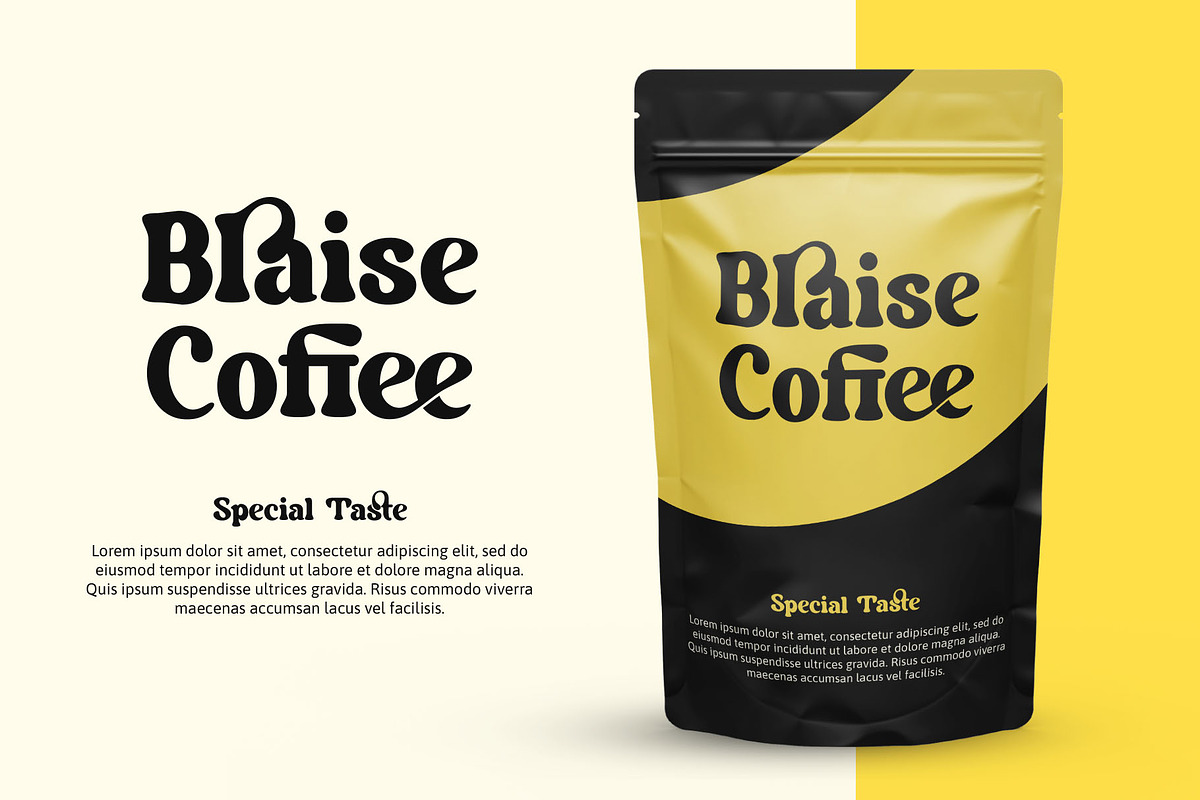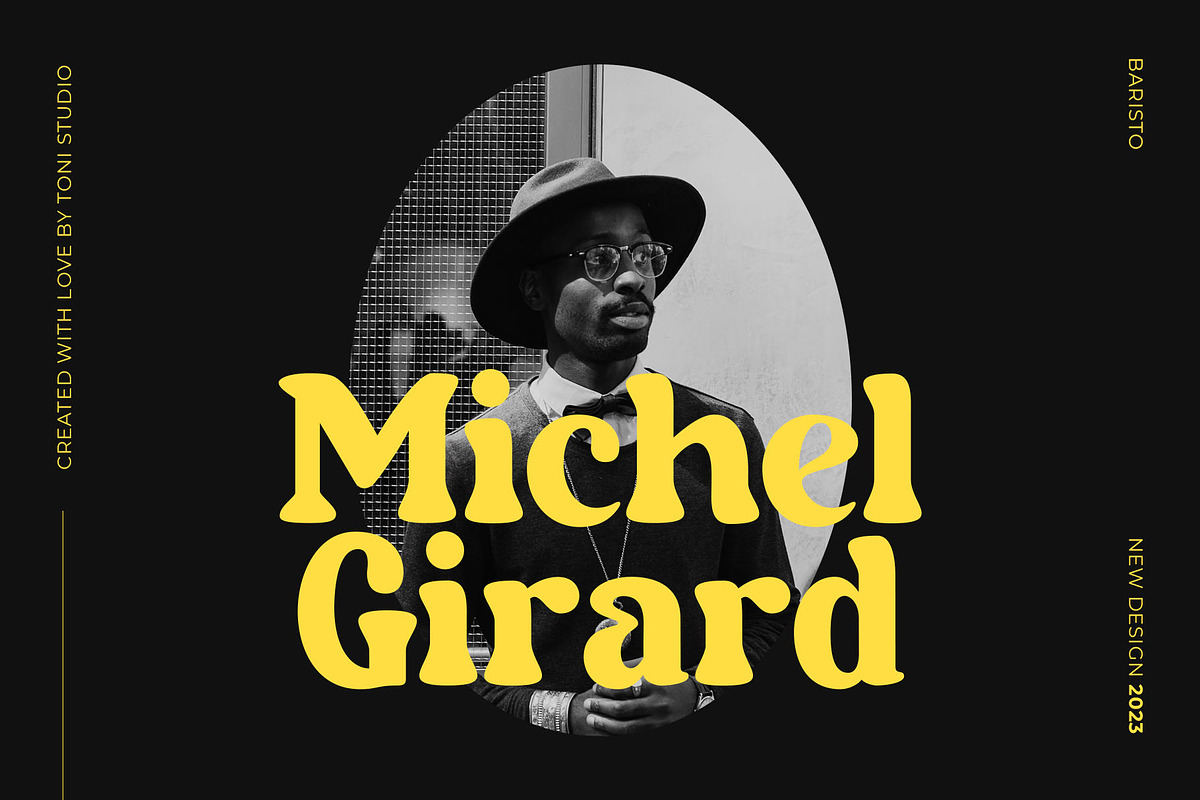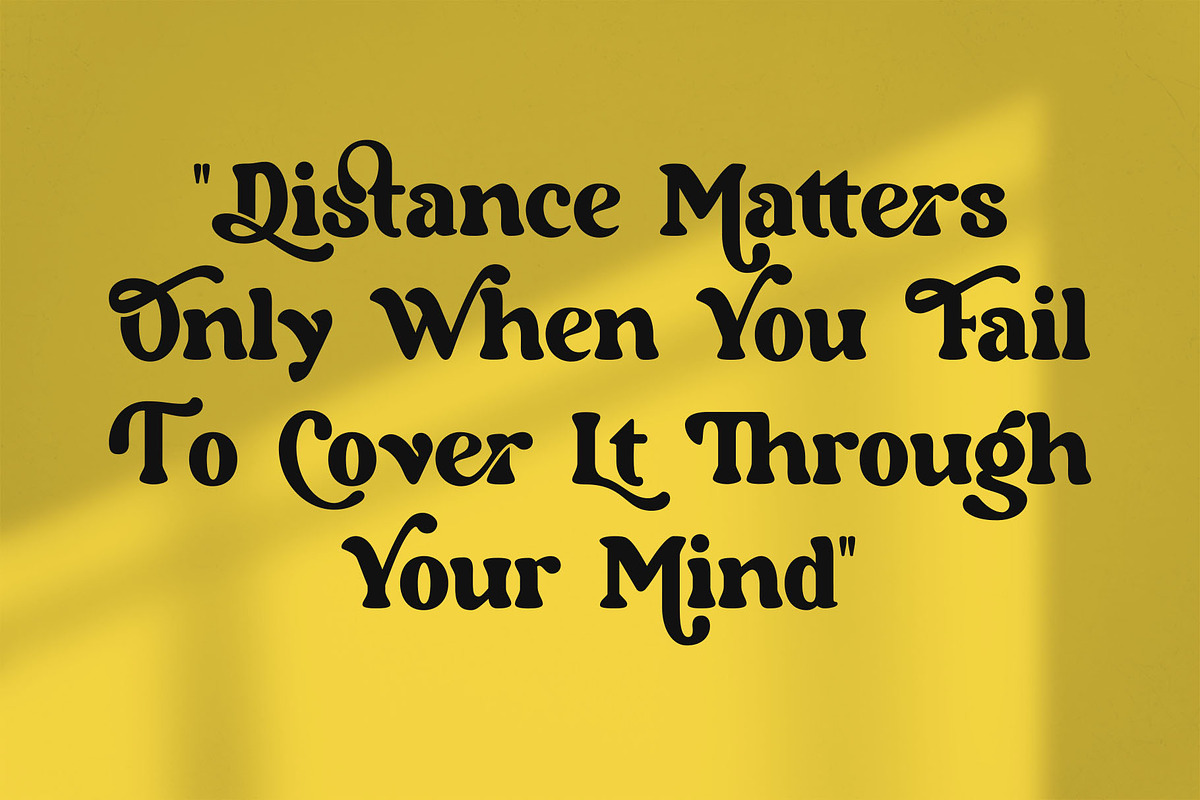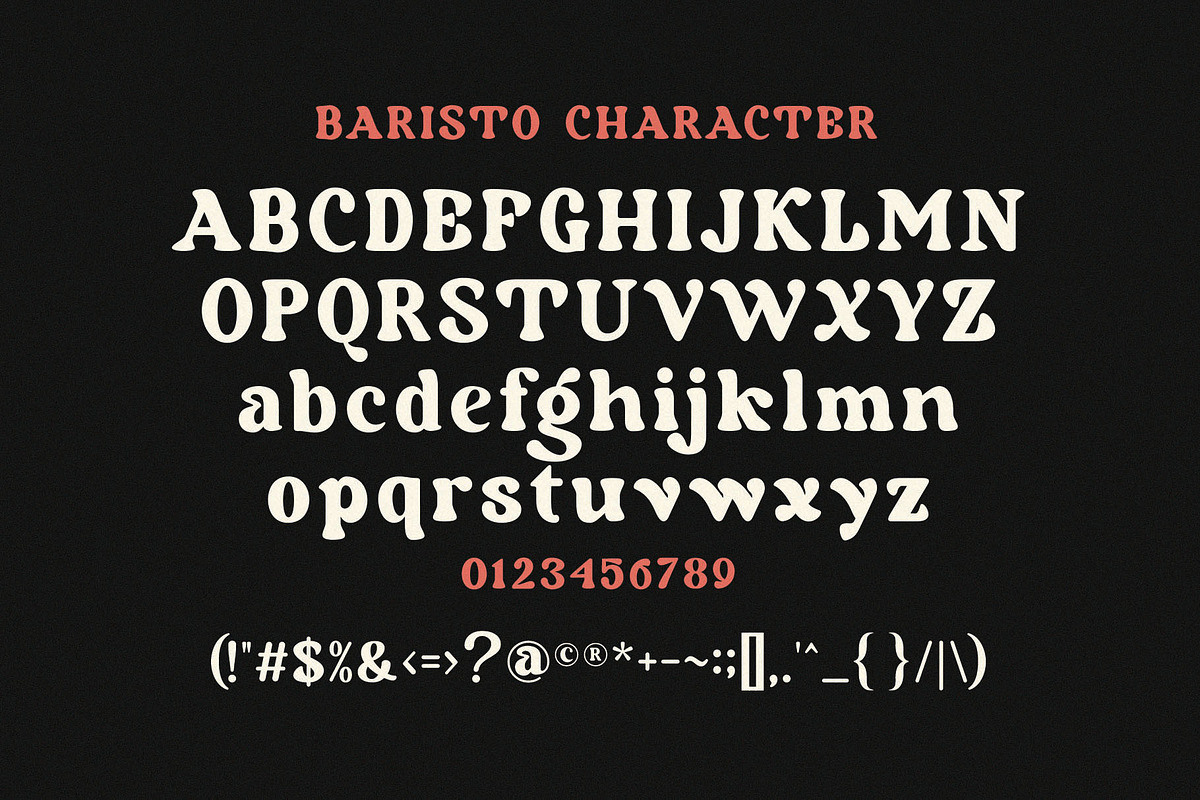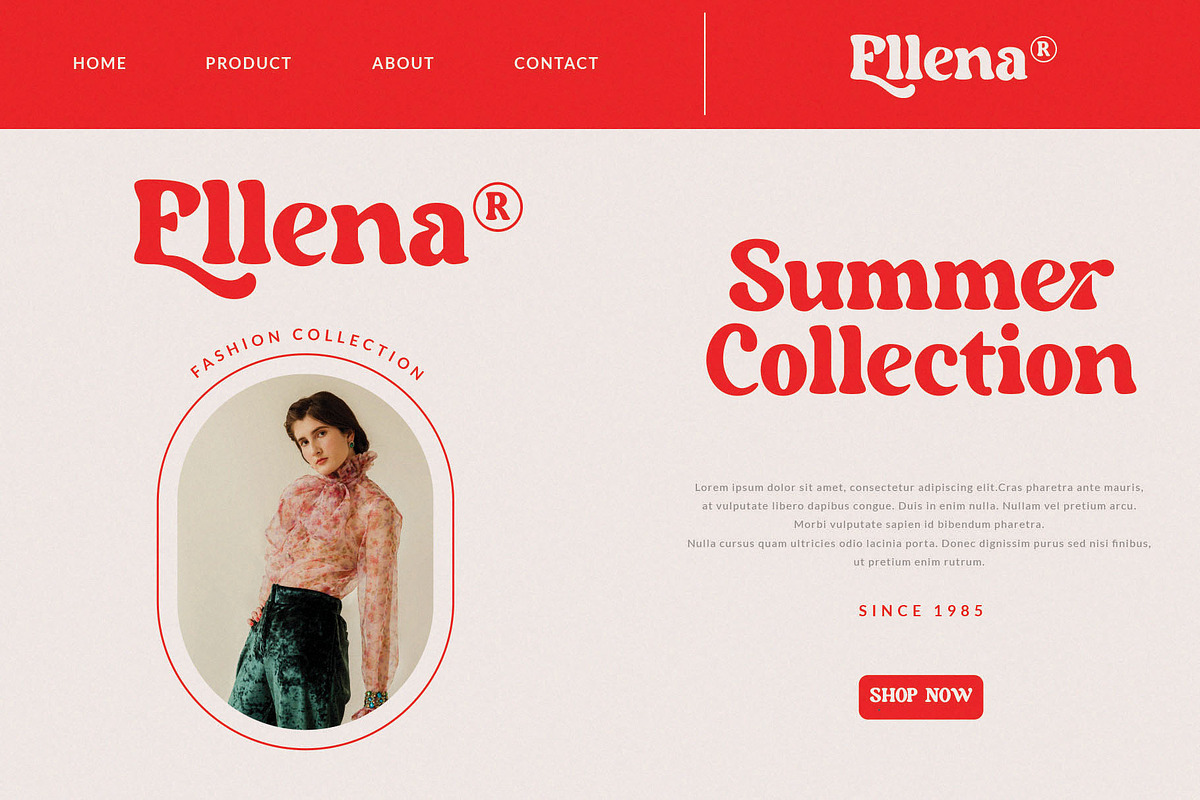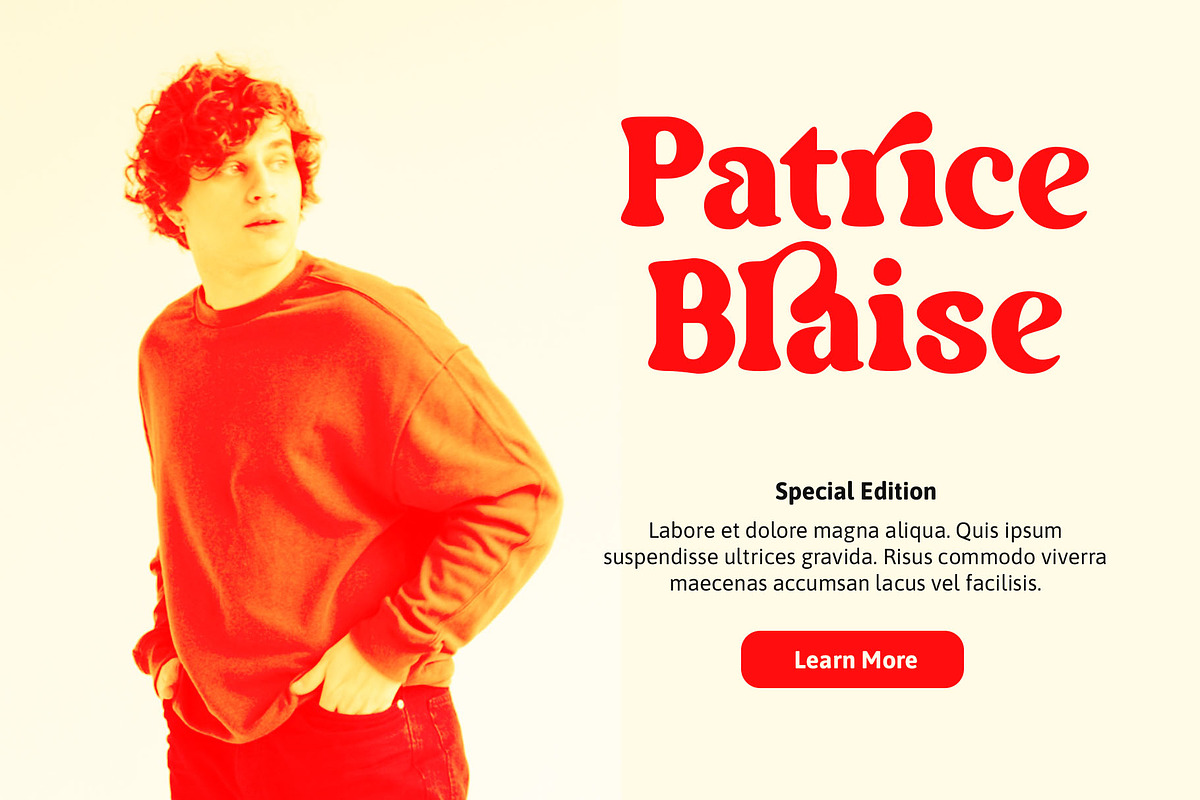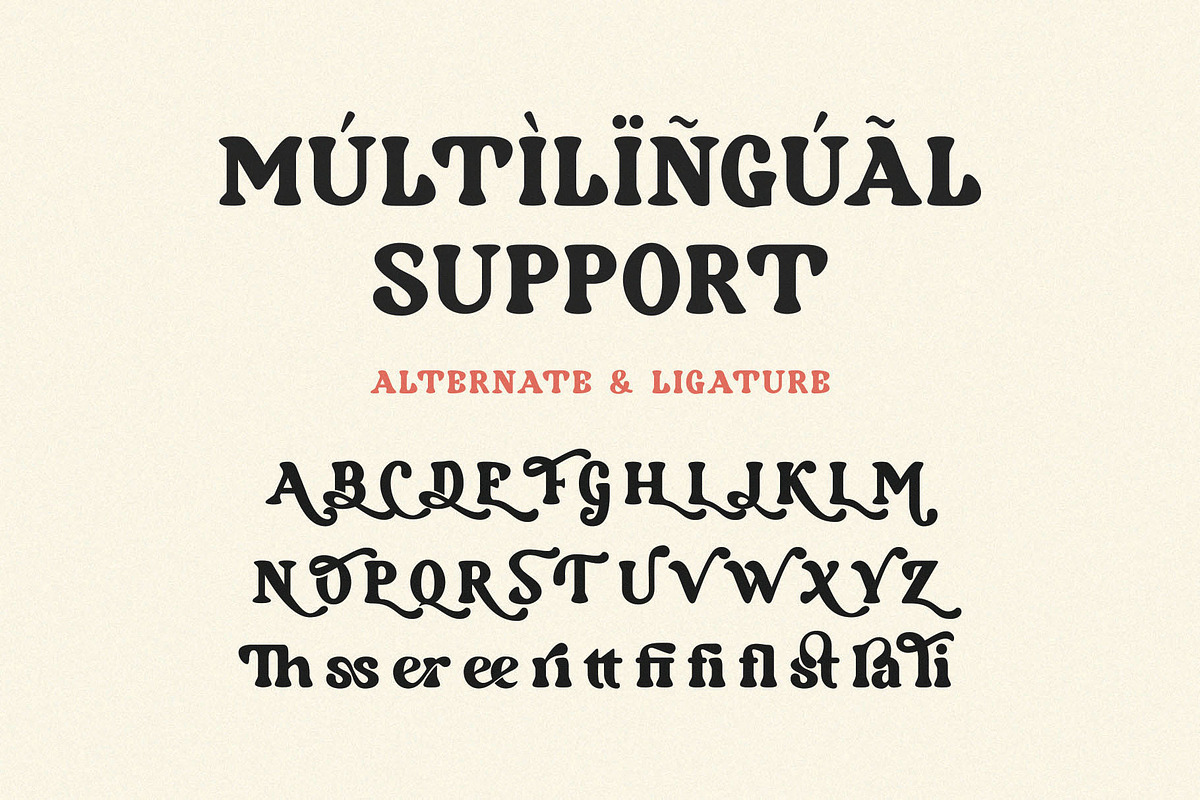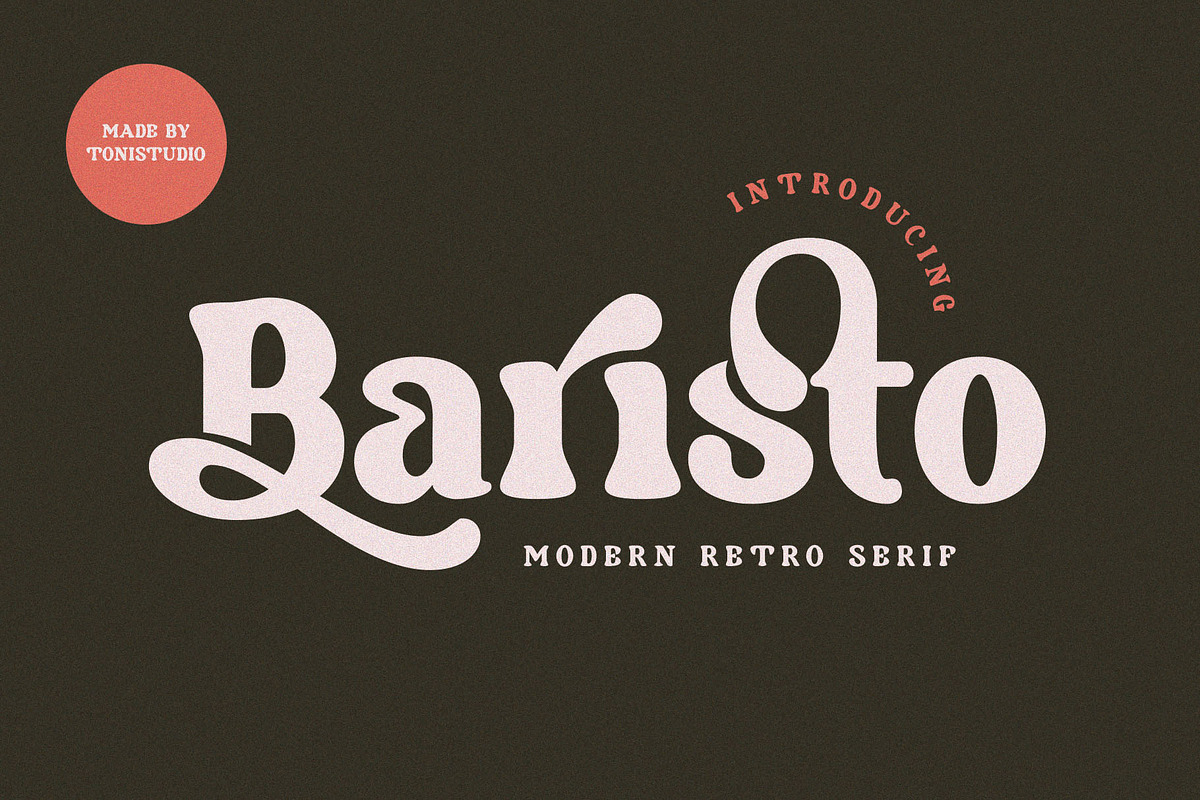
Baristo
Introducing the Baristo-retro look serif
Baristo is a magic modern vintage font that will transform beautiful alternative styles and binders, also designed to fill text gaps between lines of serif text. With beautiful alternative styles and ligatures, the font will be your best choice for Text type and Display Type . This font also supports multilanguage, numbers and symbols. You can use this font for any purpose.! Perfect for creating stunning logos, quotes, posts, blog posts. branding projects, magazine imagery, wedding invitations, and more.